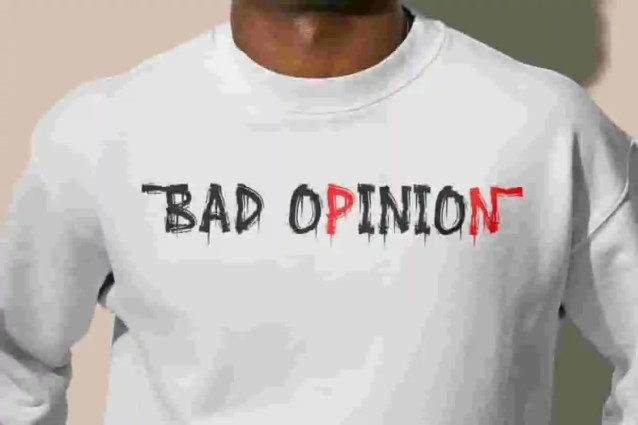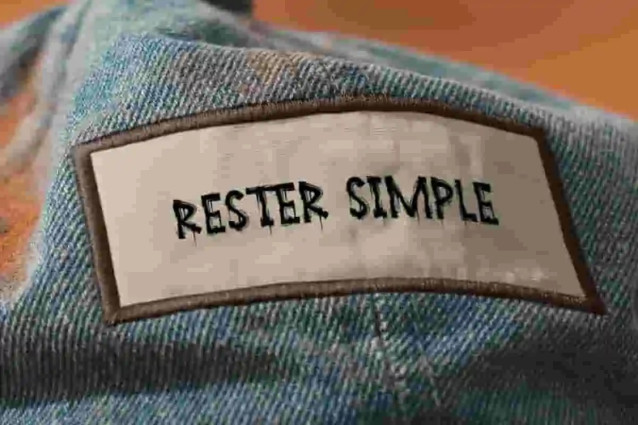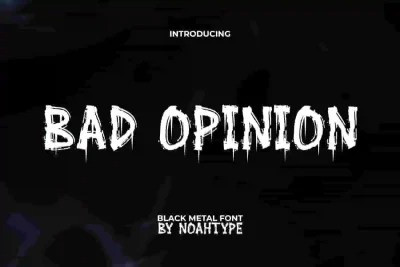
Bad Opinion Font
Bad Opinion Font is a textured sketched rough brush dark and hideous Black Metal font by NoahType. This font has a strong character as if it was made from a paint brush that was still wet and flowing down. It will be perfect for any designs, such as custom design, brand image, poster, label, invitation, cover, marketing material, menu, printing, product packaging, quotes, signage, website, and many more!
Bad Opinion Font includes full set of ALL CAPS for Uppercase and Lowercase Basic Characters, Numerals, Punctuation, Symbol, and Alternate Character. This horror font will make your design awesome and also a perfect choice for many industries, such as game, movie, comic, music, accessories, advertising, art, café, event or festival, fashion, printing, publishing, etc.